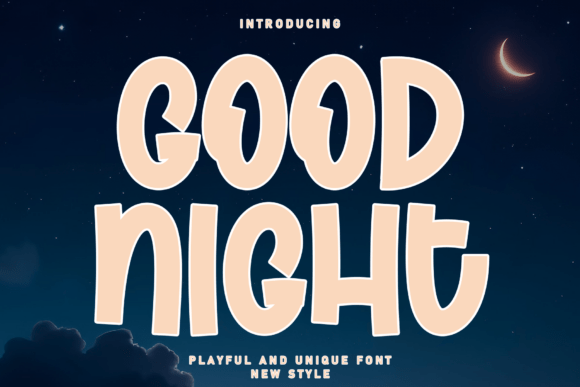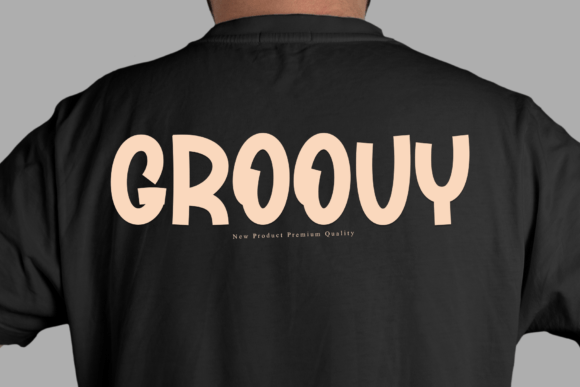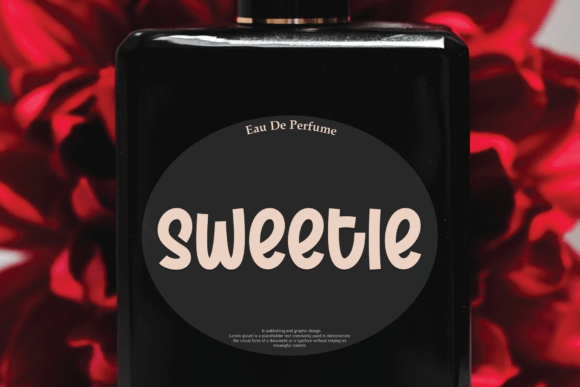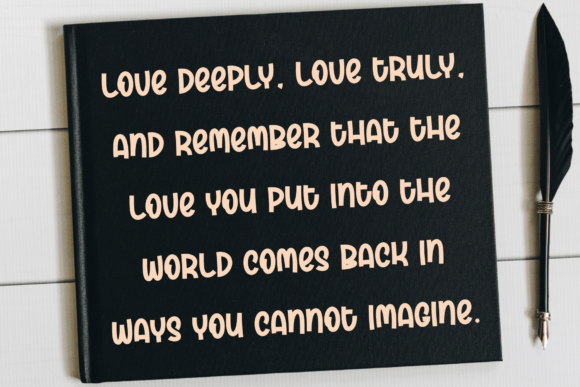
Good Night Font
About the Good Night Font
The Good Night Font is here to transform your projects with its distinctive character and style. Good Night is a dreamy and charming display font with a soft, rounded shape. Perfect for bedtime stories, nursery projects, children’s books, or night-themed graphics, this font adds a whimsical and magical touch.
Good Night’s soft, rounded forms make it ideal for children’s book titles, branding for playful products, or whimsical posters. It also works well in short headlines for projects needing a touch of gentle magic. However, its low x-height and decorative nature make it unsuitable for body text or UI elements requiring high readability.
Pairing Good Night with a clean sans-serif like Lato or Open Sans for body copy creates a strong contrast and enhances legibility. For a more playful feel, consider pairing it with a script font like Great Vibes for added whimsy, while a geometric sans-serif like Futura could offer a modern counterpoint, grounding its dreamy aesthetic.
The overall personality of Good Night is whimsical and charming, conveying a sense of gentle warmth and childlike wonder. It is best suited for brands and projects targeting younger audiences or those seeking a soft, enchanting visual identity.
Good Night Font Usage Examples
Good Night Font Example